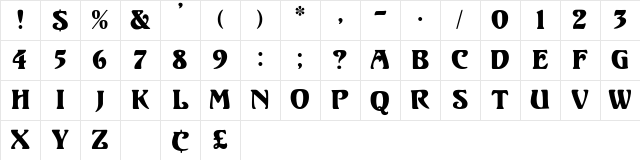
Volute Display Caps SSi Regular
Design Context for Volute Display Caps SSi
Volute Display Caps SSi is built around its visual character rather than neutral utility - its distinctive forms are designed to make an impression at display sizes.
Font Pairing: Pair with a clean neutral sans-serif for body copy to let Volute Display Caps SSi's character lead without overwhelming the composition.
Pro Tip: Use Volute Display Caps SSi exclusively at display sizes - it was designed to be seen, not read at length. Let a neutral companion handle body copy.